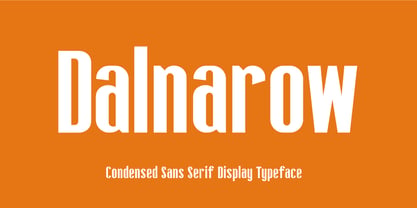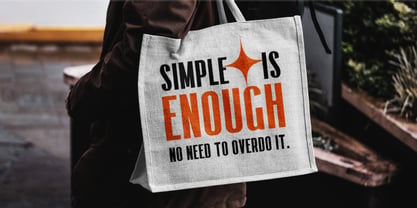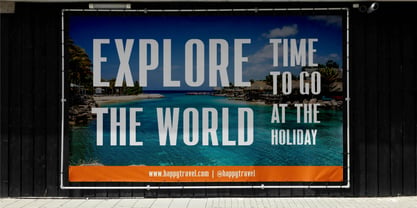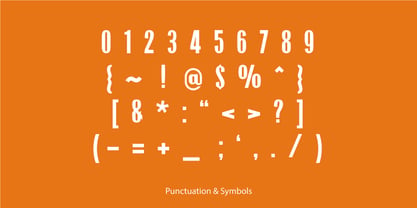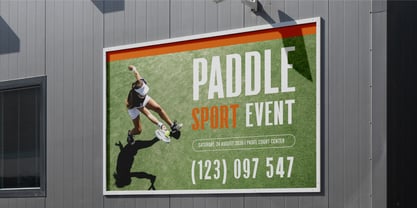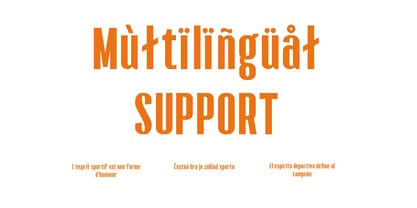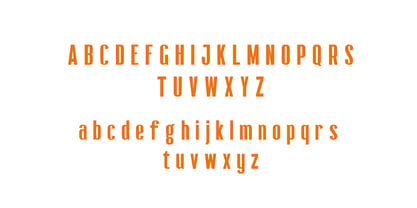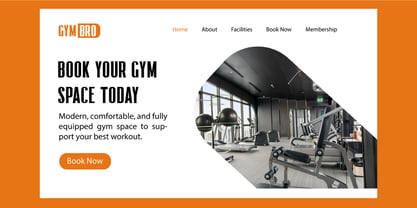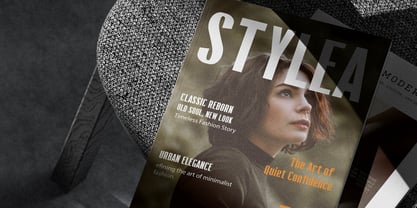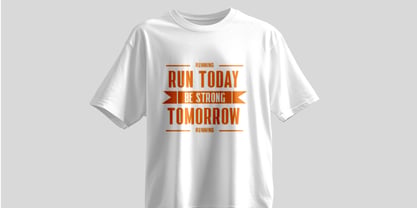
Dalnarow
The Dalnarow Font Family was designed by Yohanes Oktavianus Aang and published by Yohanes Oktav. Dalnarow contains 1 styles. More about this family
Dalnarow is a condensed sans serif display typeface designed for clarity, impact, and modern visual communication. Its tall proportions and narrow structure create a strong vertical rhythm, delivering a bold presence while ensuring high legibility. The clean and disciplined letterforms feature consistent stroke weight and balanced spacing, preventing the condensed shape from feeling cramped or rigid. Ideal for headline-driven layouts, Dalnarow excels in posters, sports branding, event graphics, signage, and advertising, where space efficiency and visual strength are essential. The uppercase characters exude authority and confidence, while the lowercase set ensures a smooth reading flow for supporting display text. Subtle terminal treatments soften the geometry, imparting a contemporary yet approachable character. Dalnarow conveys energy, professionalism, and precision, making it an excellent choice for athletic, corporate, and urban design systems. With multilingual Latin support, it is well-suited for international use across both print and digital platforms, enhancing its versatility for diverse branding and editorial applications.